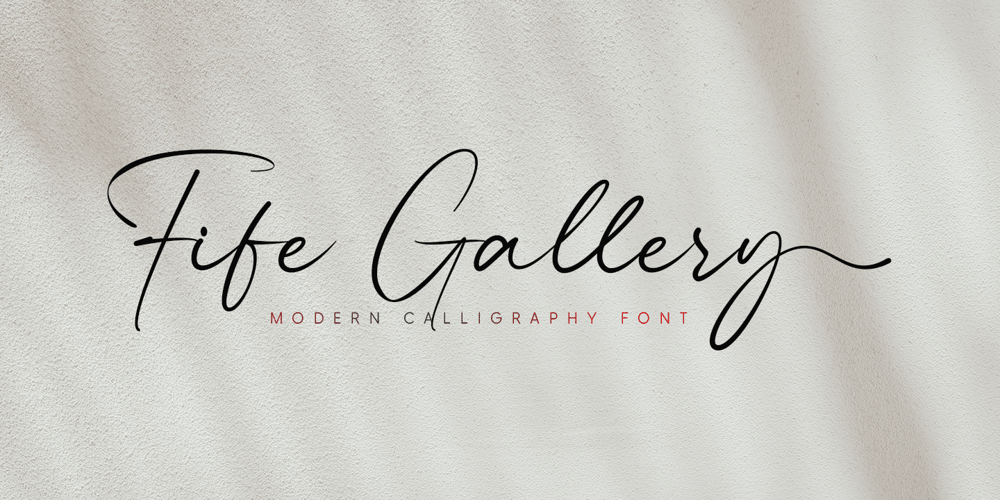
Fife Gallery Font Family was designed by Dwi Ahidian and published by Lemonthe. Fife Gallery contains 1 styles and family package options. Fife Gallery is a stylish and incredibly elegant modern calligraphy font. It looks stunning on wedding invitations, quotes, greeting cards, logos, business cards and every other design which needs a handwritten touch.